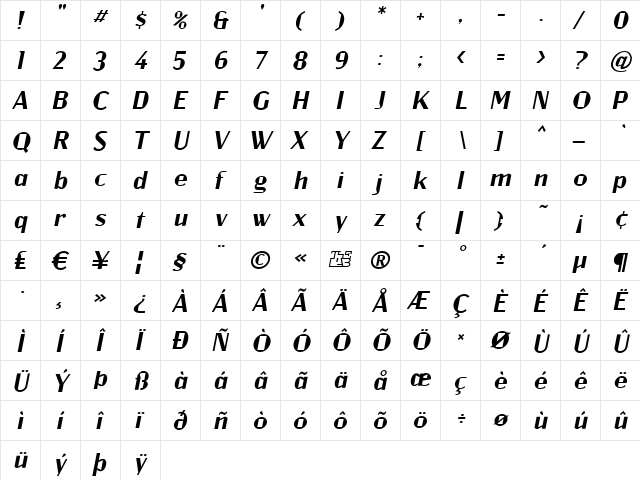
Jagz Italic
| Designer | Karen Clemens & Apostrophe |
Design Context for Jagz Typeface
Jagz takes a measured approach to typography — its balanced proportions and neutral character make it a reliable workhorse for both digital and print work. The dynamic lean of this cut emphasises speed and emphasis in any layout.
Pro Tip: Use Jagz for emphasis, pull quotes, and subheadings where its slanted energy can add rhythm to the layout.